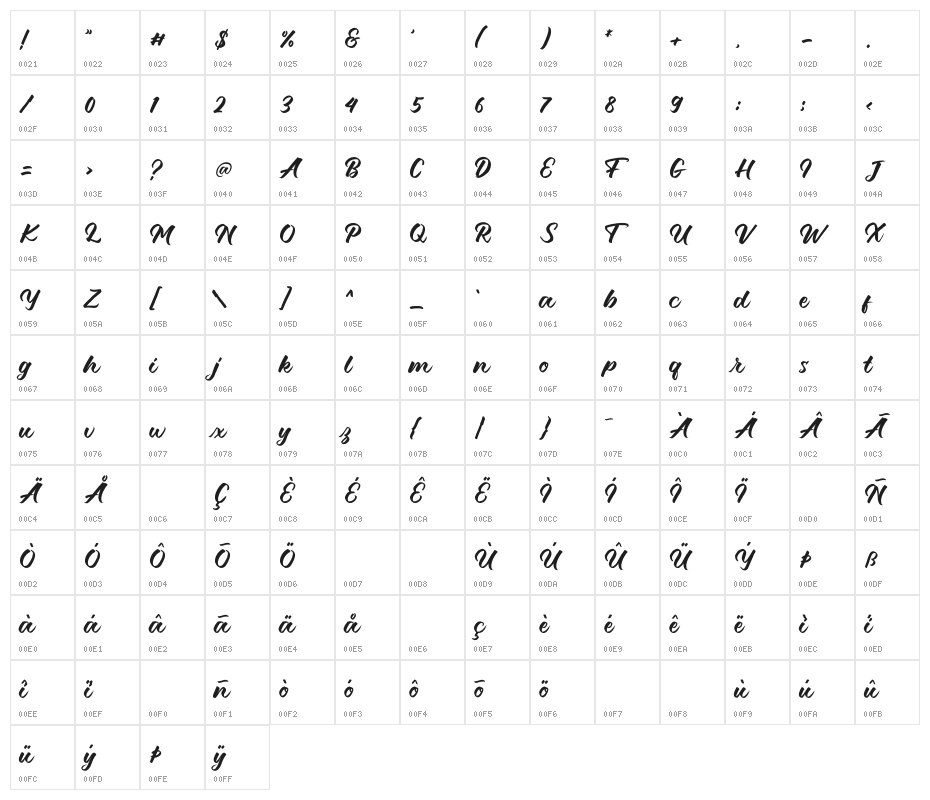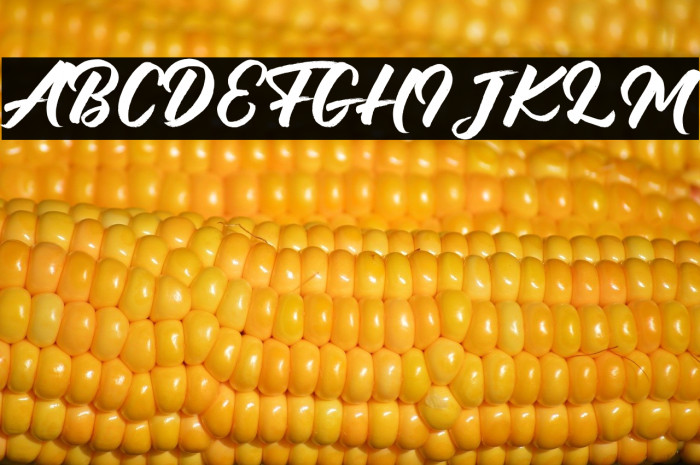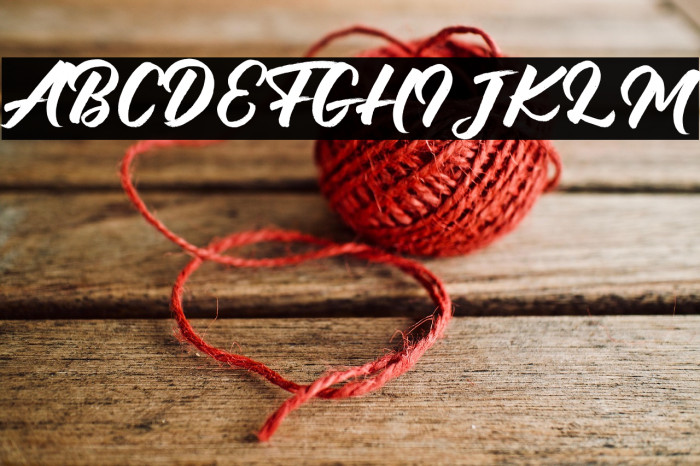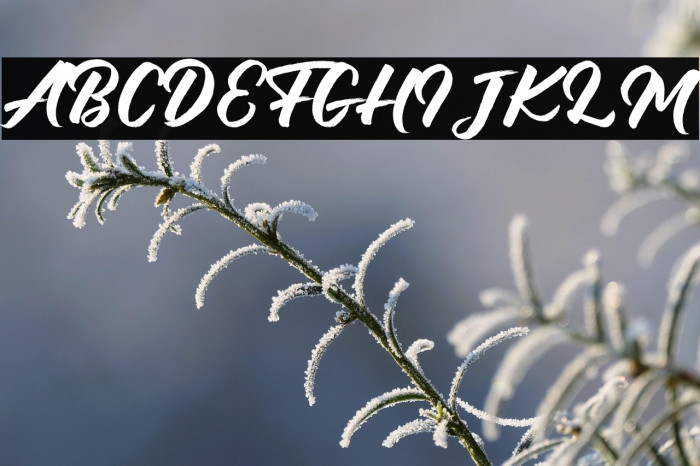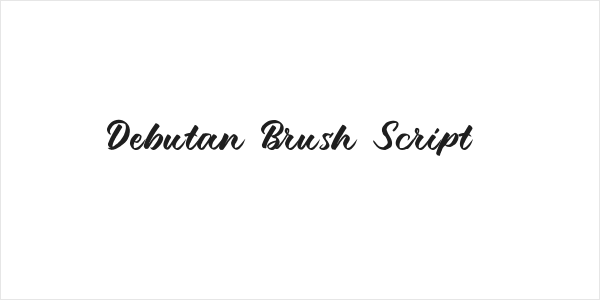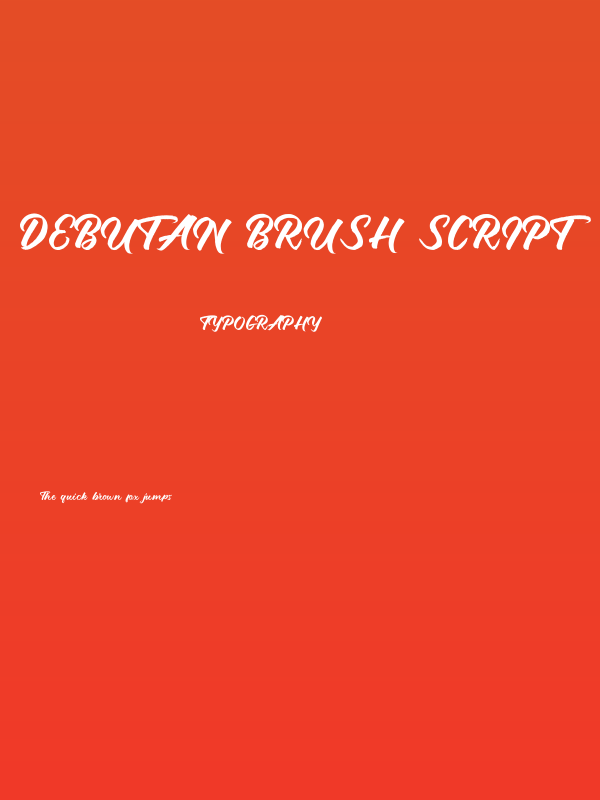
Debutan Brush Script Font
Debutan Brush Script Description
This font features a dynamic and flowing script style, characterized by its bold and expressive strokes. The letters are interconnected, creating a sense of movement and elegance. The uppercase letters are slightly larger and more pronounced, while the lowercase letters maintain a consistent flow. The numbers and special characters are designed to complement the overall script style, maintaining the same boldness and fluidity. This font is ideal for projects that require a personal touch, such as invitations, greeting cards, or branding materials.
| Use Case | Logos, Headlines, Invitations |
| Proposed Projects | Ideal for invitations, greeting cards, branding, and any project needing a personal, elegant touch. |